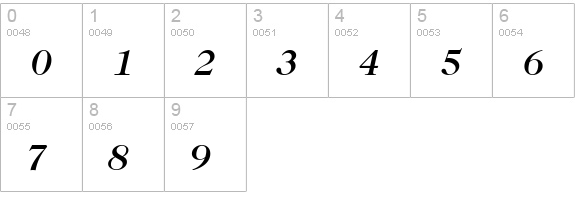
Caslon-Medium-Italic Font Details
Caslon-Medium-Italic is a balanced, medium-weight, italic variant in the Caslon typeface family \xE2\x80\x94 well suited to sub-headlines, navigation, and balanced editorial work.
Caslon-Medium-Italic is a sophisticated and elegant font that exudes timeless charm and classic appeal. With its slanted and graceful italic style, this typeface adds a touch of refinement to any project or design. The Caslon-Medium-Italic font strikes the perfect balance between traditional and modern, making it a versatile choice for a wide range of applications. Not only does Caslon-Medium-Italic offer superior legibility and readability, but it also conveys a sense of sophistication and professionalism. Whether used for headings, body text, or quotes, this font is sure to make a lasting impression on your audience. The best part? Caslon-Medium-Italic is available for free download at FontsMarket.com, allowing you to access this premium font without any cost. Don't miss out on the opportunity to enhance your designs with the timeless beauty of Caslon-Medium-Italic. Download it today and elevate your projects to new heights of elegance and style.